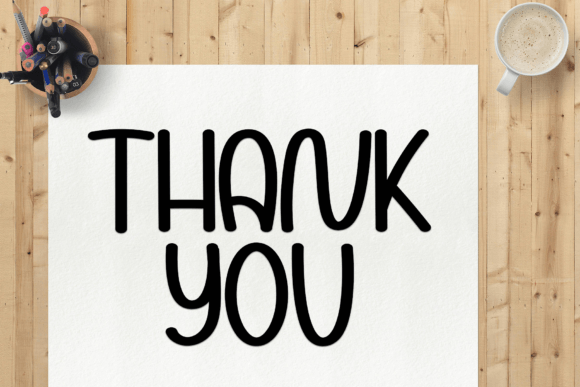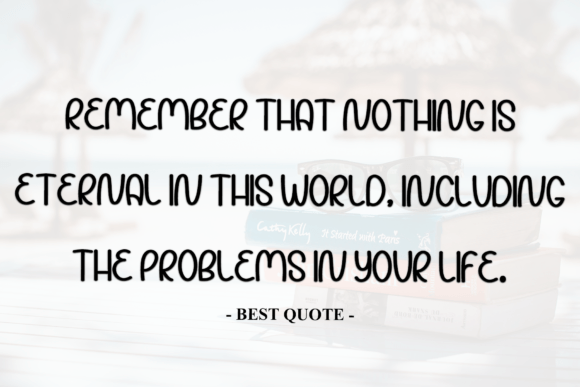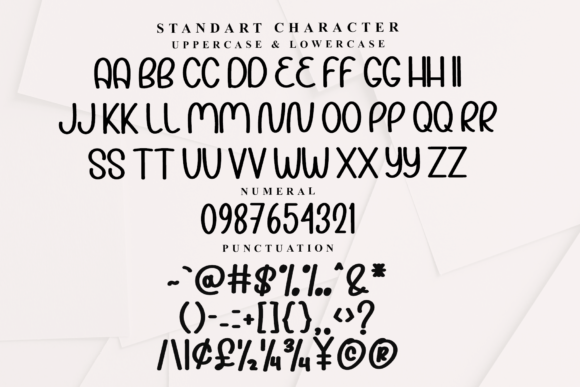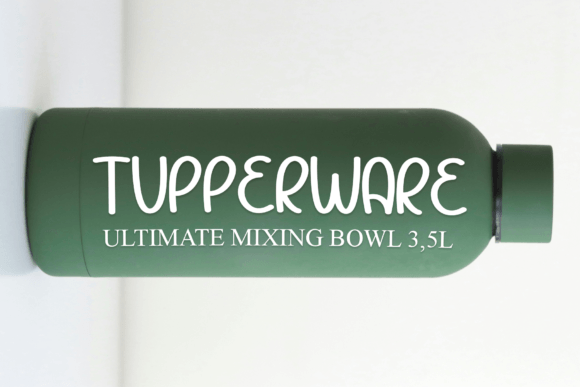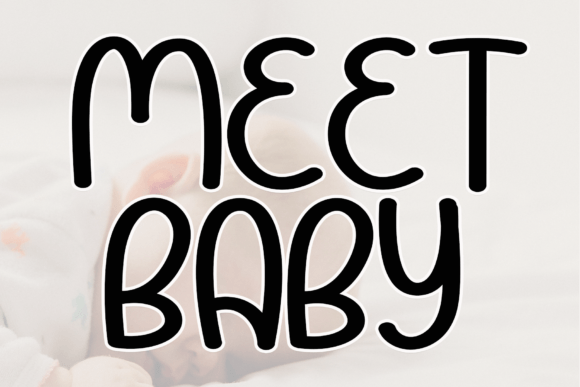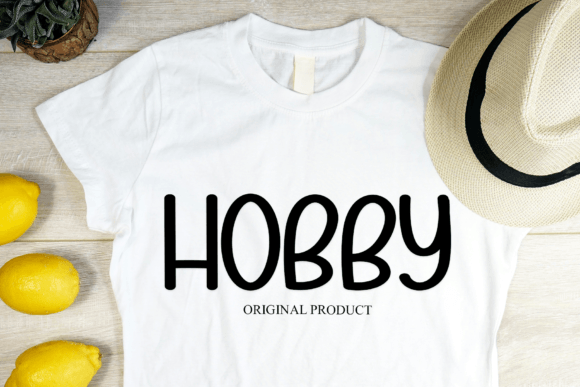
Introduction to Playful Nature Font
Playful Nature is a charming handwritten font with a warm, festive feel.
It features flowing letters that bring a personal touch to holiday messages, making everything look cozy and inviting Perfect for cards, decorations, and seasonal greetings.
Key Features of Playful Nature Font